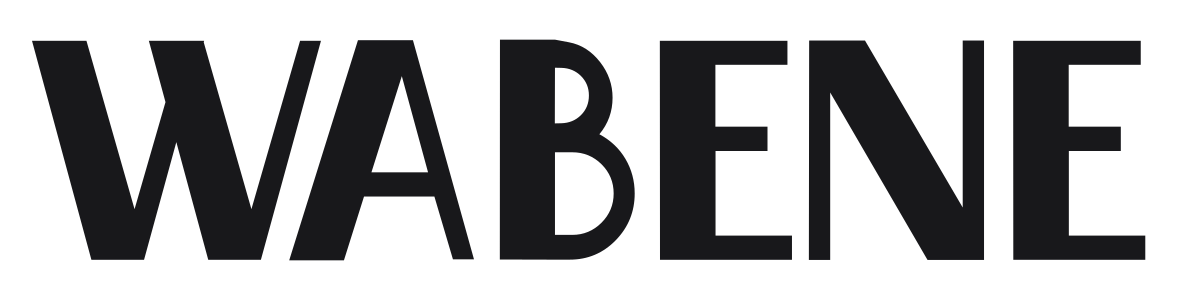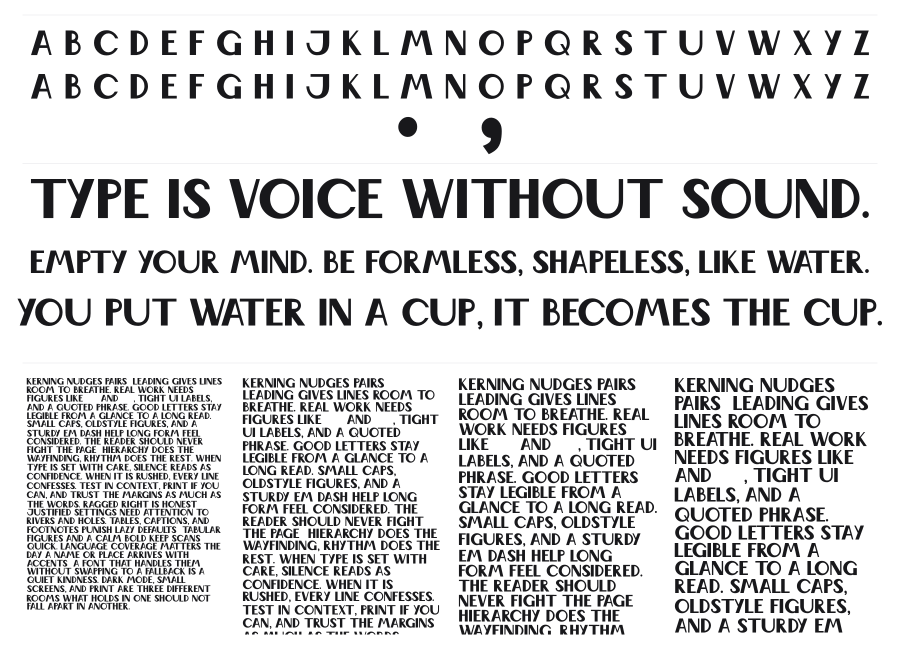
Wabene
Wabene is a bold display sans with an art deco-influenced structure and a deliberately irregular rhythm across its characters. Some letters sit wide and heavy while others narrow sharply, creating a striking visual tension that draws the eye. It reads best large, where those contrasts between characters become an expressive feature rather than a distraction.